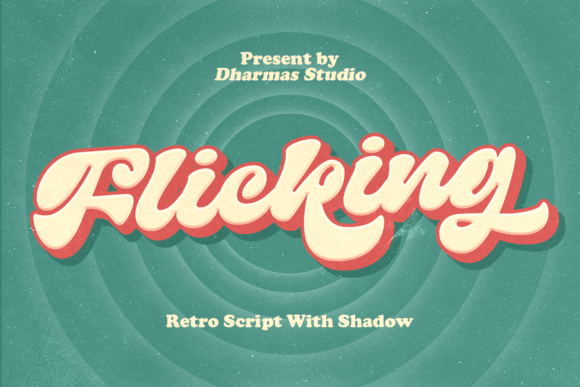
Introducing FLICKING, the ultimate font that takes you on a mesmerizing journey back to the stylish 60s! Created by Dharmas Studio, this font family is a game-changer for anyone seeking the best fonts for print in 2018. With its bold retro script and the added Shadow version, FLICKING effortlessly captures the essence of the groovy era.
FLICKING is not just your ordinary font. It is a time machine that transports your designs to a bygone era of vibrant colors, free spirits, and endless creativity. Whether you're designing a logo, invitation, label, magazine, book, or even a greeting card, FLICKING is the key to unlocking a world of possibilities.
With its unique blend of vintage charm and contemporary flair, FLICKING sets itself apart from other fonts in the market. Its script style adds a touch of elegance and sophistication, while the Shadow version adds depth and dimension to your designs. The combination of these two styles makes FLICKING incredibly versatile, allowing you to create eye-catching and memorable designs that leave a lasting impact.
What sets FLICKING apart from other fonts is its attention to detail and meticulous craftsmanship. Every curve and stroke has been carefully crafted to ensure a seamless reading experience. The letters flow effortlessly, creating a harmonious balance that is pleasing to the eye. Each character in the FLICKING font family has its own unique personality, adding character and charm to your designs.
Not only does FLICKING offer aesthetic appeal, but it is also optimized for performance. The font is designed to be easily readable in both print and digital formats, ensuring that your message is effectively conveyed to your audience. Its legibility ensures that your designs are accessible to all, regardless of age or background.
In addition to its visual appeal and functionality, FLICKING is also a font that evokes emotions. It captures the nostalgia and sentimentality of the 60s, transporting users to a time of peace, love, and creative expression. The font's retro vibes resonate with users on a deep emotional level, making it a powerful tool for connecting with your audience.